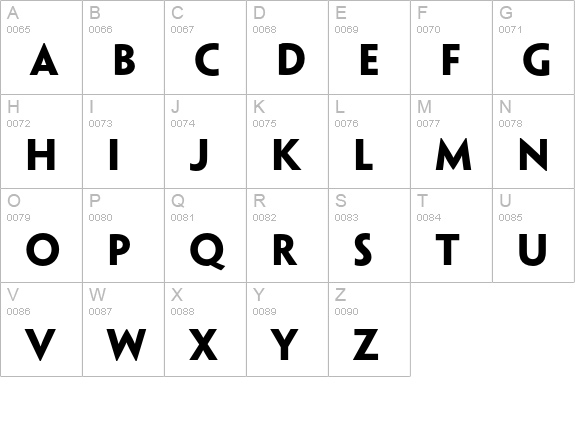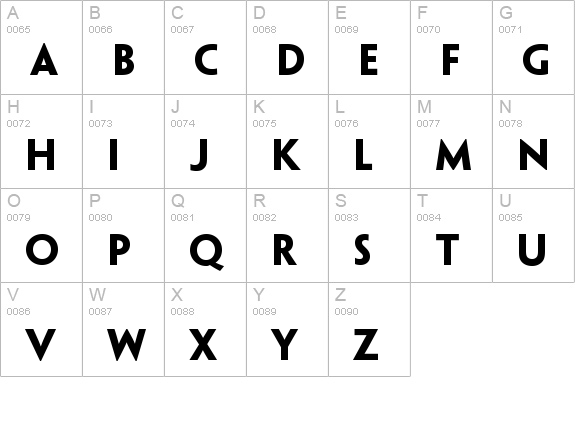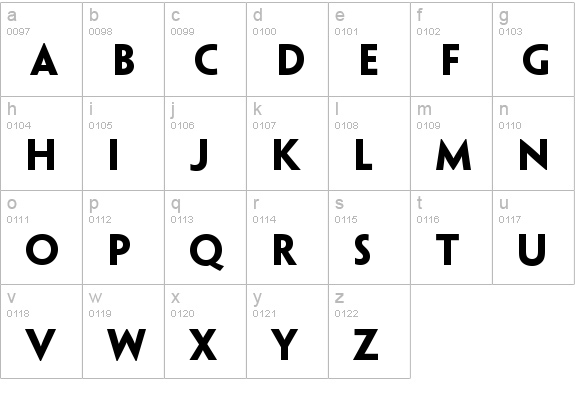
Penumbra Sans Std Bold Font Details
Penumbra Sans Std Bold is a strong, high-contrast variant in the Penumbra typeface family \xE2\x80\x94 well suited to headlines, attention-grabbing titles, and strong calls-to-action.
Penumbra Sans Std Bold is a striking and versatile typeface that exudes confidence and modernity. With its bold weight and clean lines, this font demands attention and makes a bold statement. Whether used for headlines, titles, or graphic design projects, Penumbra Sans Std Bold adds a touch of sophistication and elegance to any composition. This font features a balanced combination of geometric and organic forms, resulting in a harmonious and visually pleasing aesthetic. The characters are meticulously crafted, with carefully designed curves and angles that create a sense of fluidity and movement. The bold weight of the font gives it a strong presence, making it ideal for attention-grabbing designs. One of the standout features of Penumbra Sans Std Bold is its versatility. It can be used effectively in a variety of design contexts, from branding and advertising to web design and print media. Its clean and modern appearance ensures legibility even at smaller sizes, making it suitable for body text as well. The best part? Penumbra Sans Std Bold is available for free download at FontsMarket.com. This means that designers and typographers can enjoy the benefits of this exceptional font without any cost. Whether you're a professional designer or a hobbyist, having access to high-quality fonts like Penumbra Sans Std Bold can greatly enhance your creative projects. So why wait? Enhance your designs with the bold and modern aesthetic of Penumbra Sans Std Bold. Download this remarkable font for free at FontsMarket.com and take your design projects to the next level.